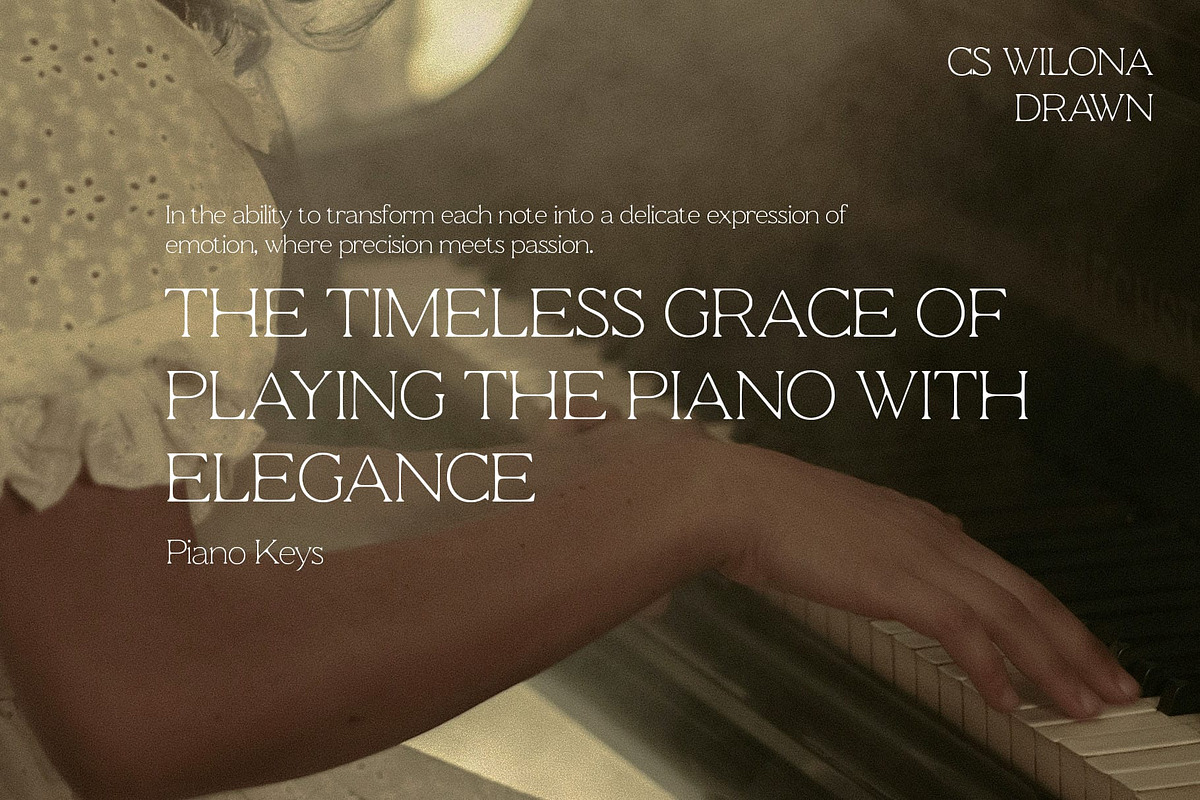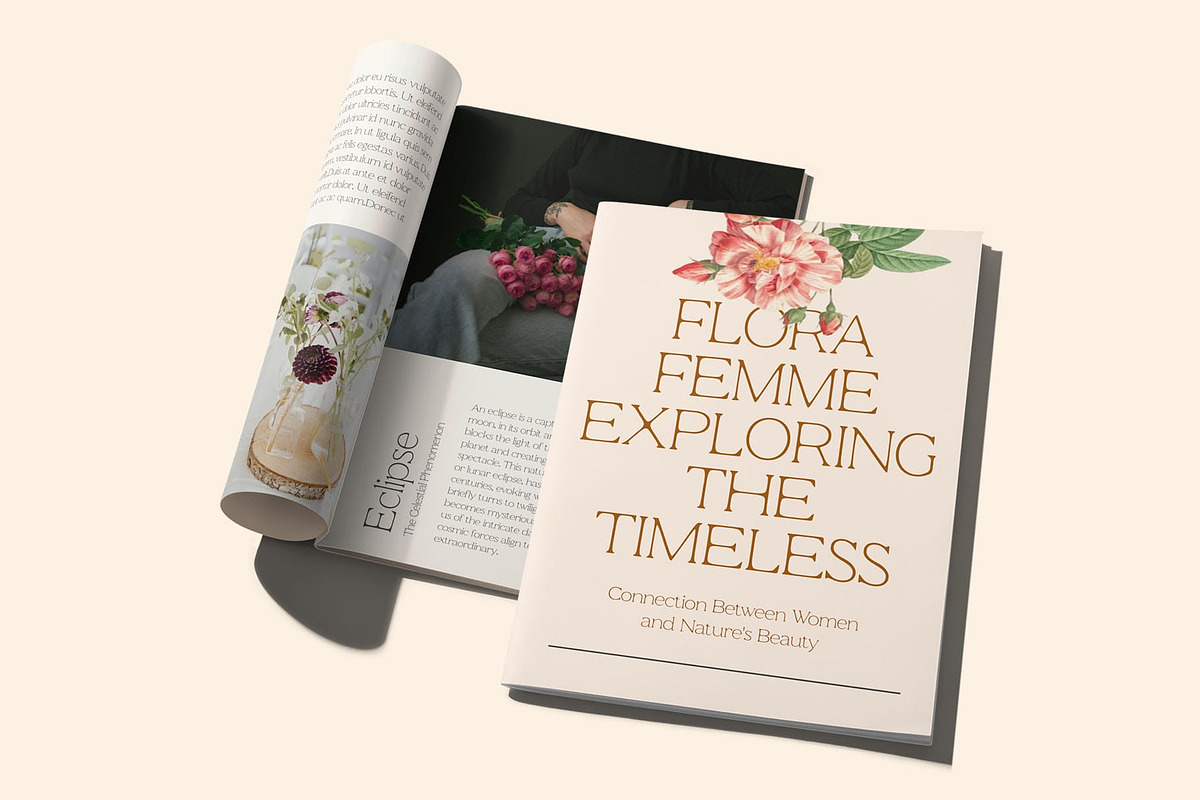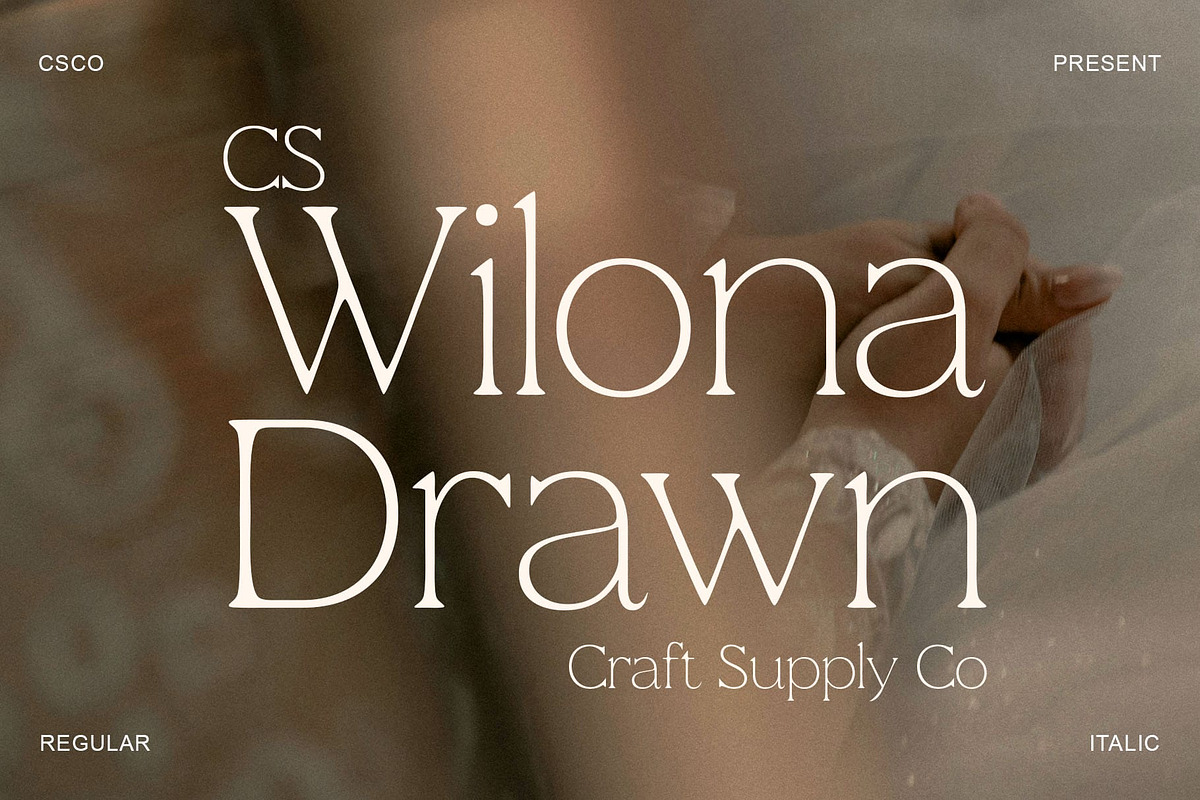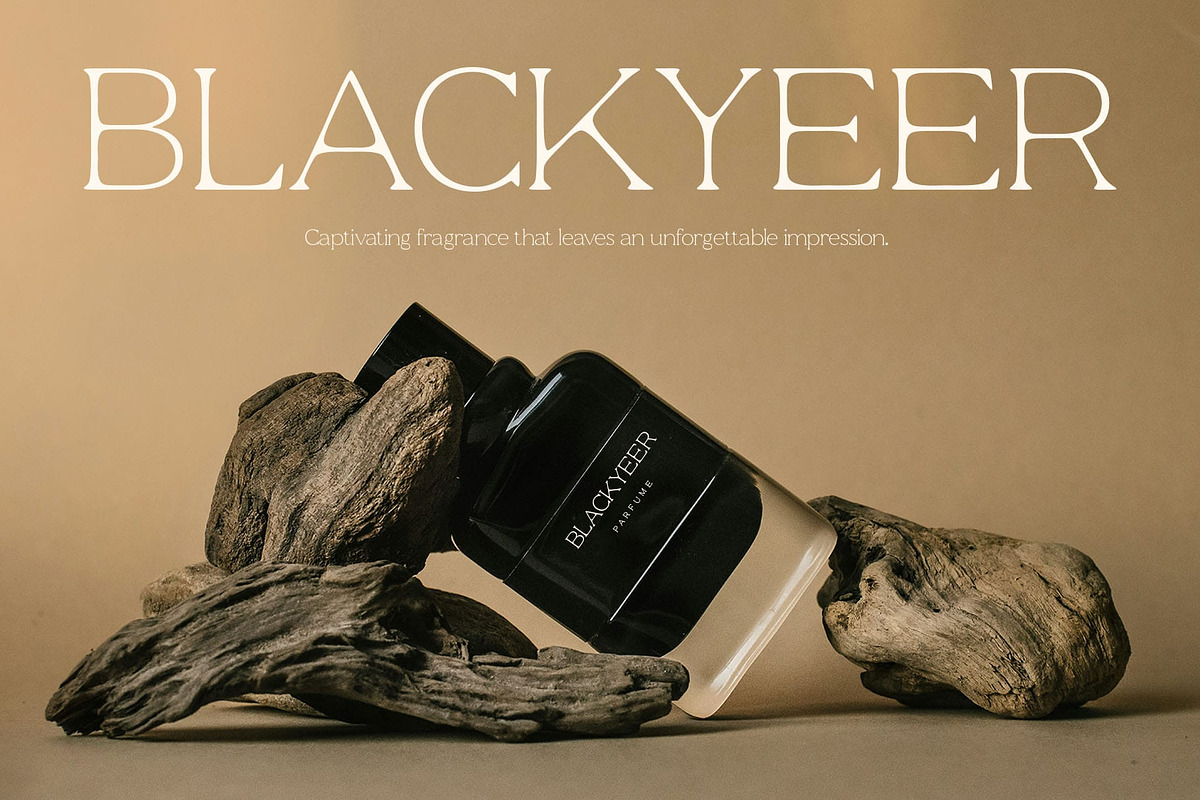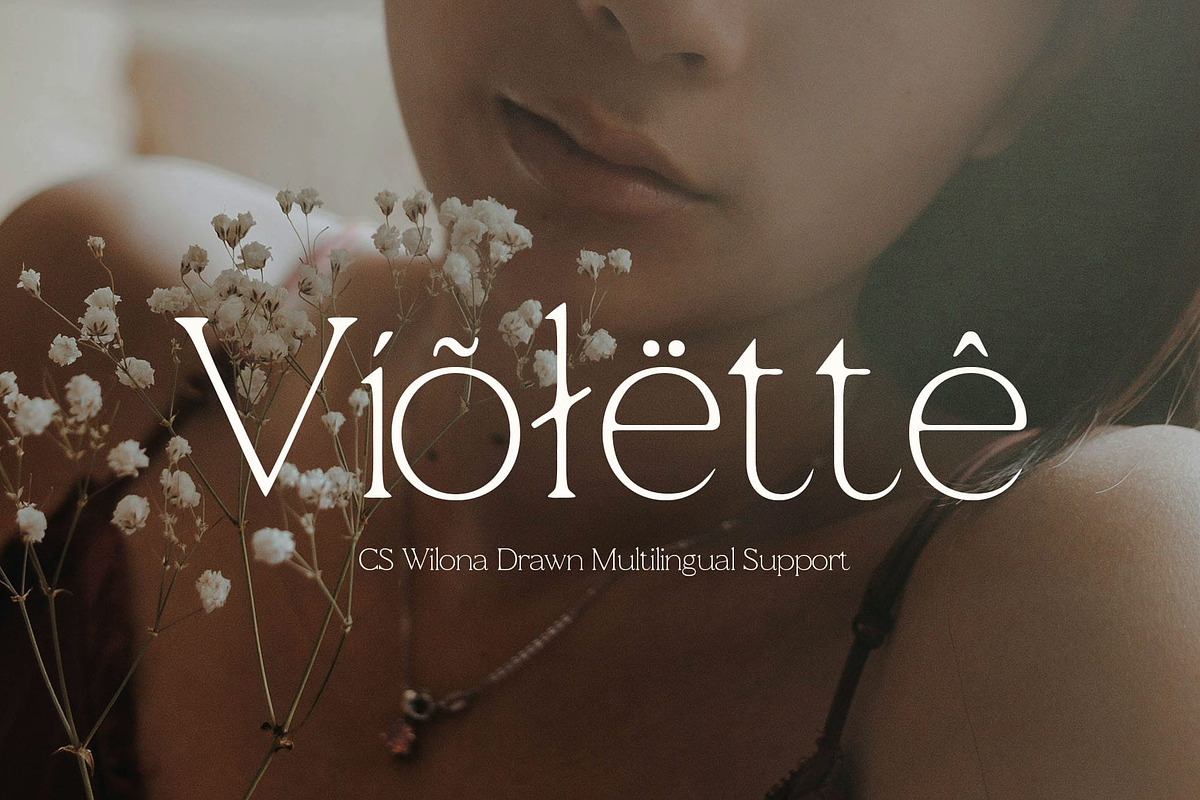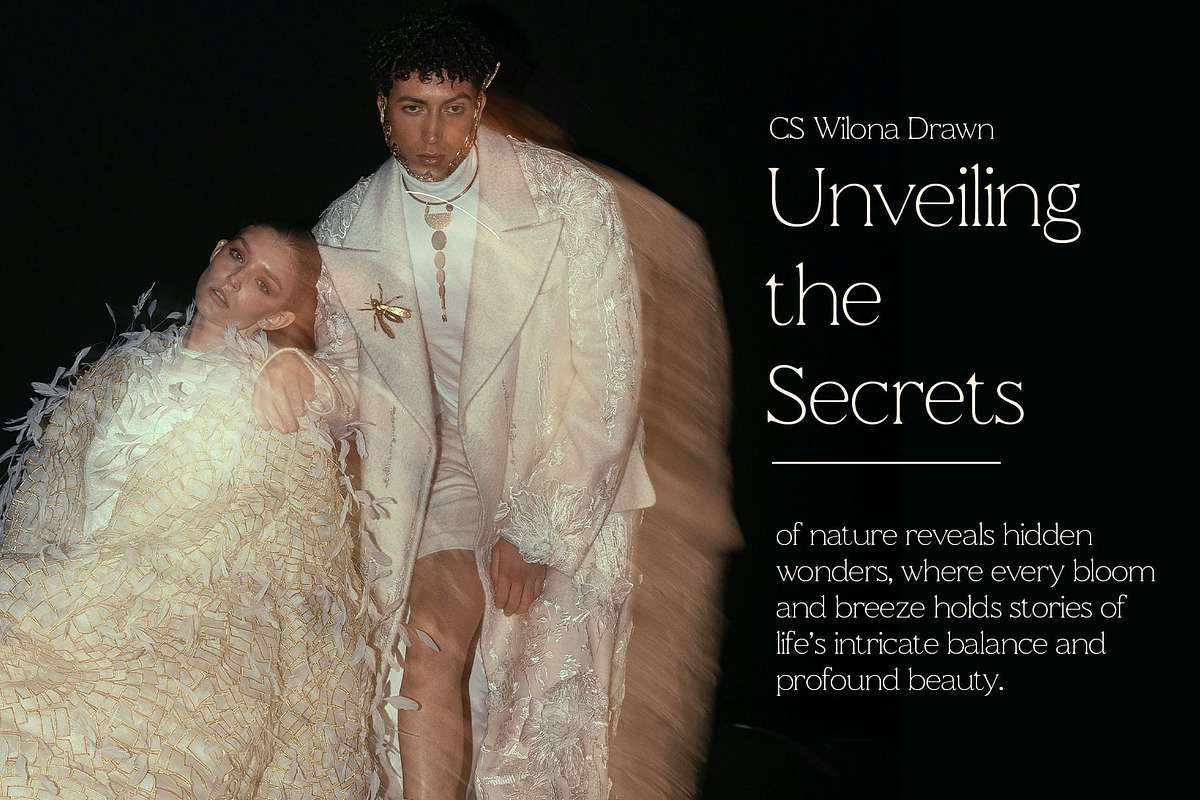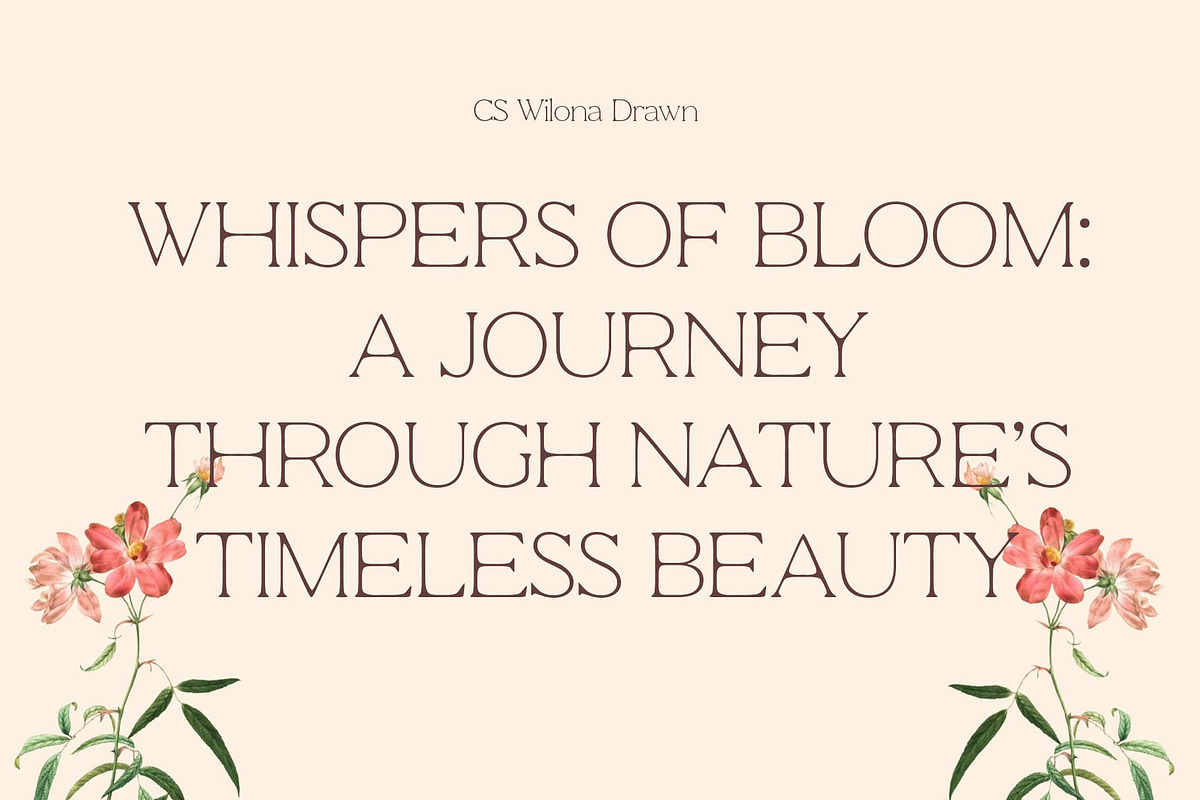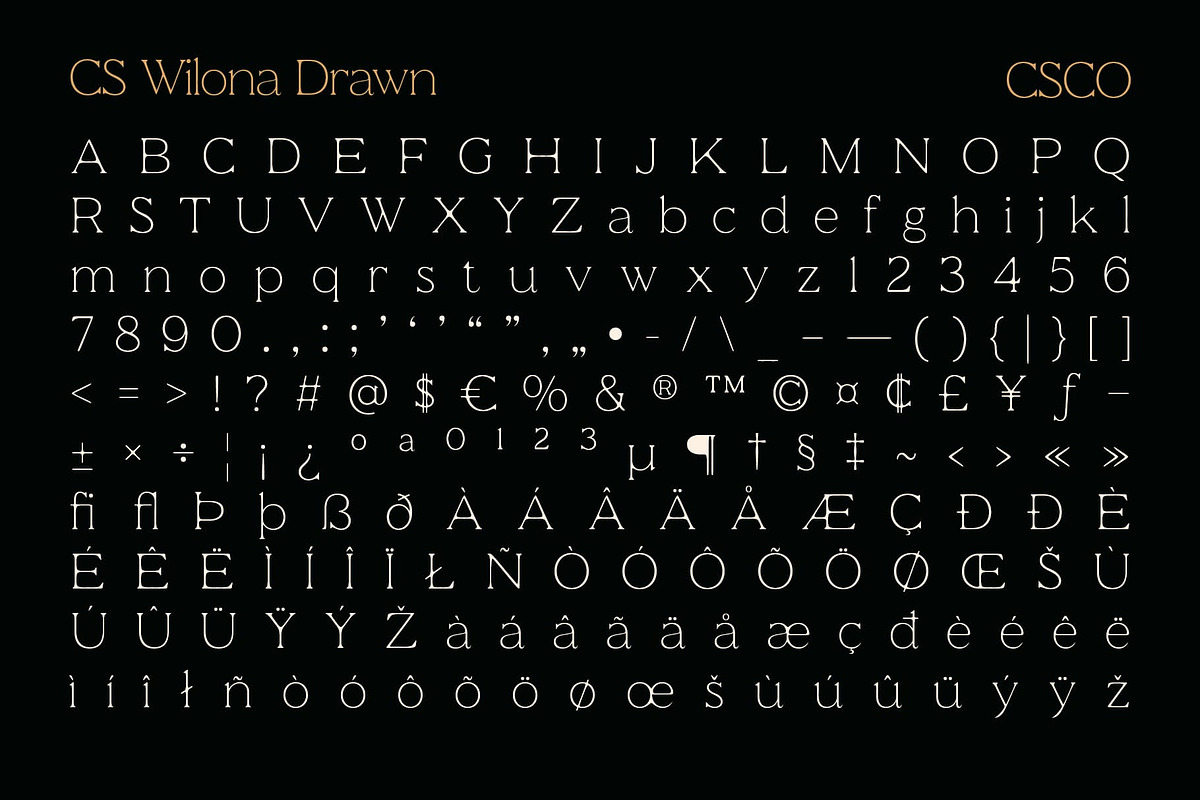
CS Wilona Drawn
CS Wilona Drawn: A Perfect Blend of Modernity and Artistic Craftsmanship
Elegant and Minimalist Design This is a modern serif font that boasts minimalist letterforms with clean, sharp edges. This sleek design conveys a sense of sophistication and aesthetic appeal, making it an ideal choice for high-end and professional projects. Its contemporary serif structure ensures timeless versatility, perfect for creating designs that exude refinement and elegance.
Hand-Drawn Effect for an Artistic Edge What sets this elegant serif font apart is its subtle hand-drawn effect, which adds a personal and creative dimension to its polished structure. The handcrafted details introduce a layer of uniqueness, giving each letter a distinctive touch that resonates with artistic nuance. This blend of precision and personality elevates the font, making it a standout option for projects requiring both style and individuality.
Ideal for Luxury Branding and Editorial Design This drawn font strikes a harmonious balance between contemporary minimalism and creative craftsmanship, making it a top choice for luxury branding, formal invitations, and editorial layouts. Its refined aesthetic delivers a polished and sophisticated look, whether used in upscale logos, premium product packaging, or stylish magazine spreads.